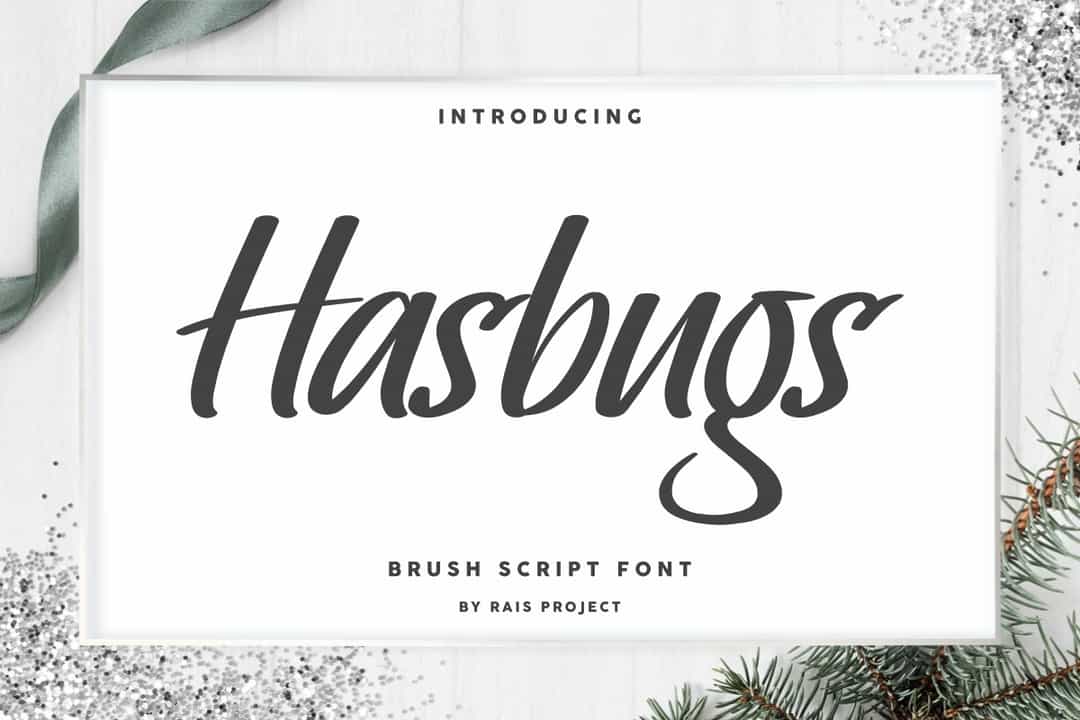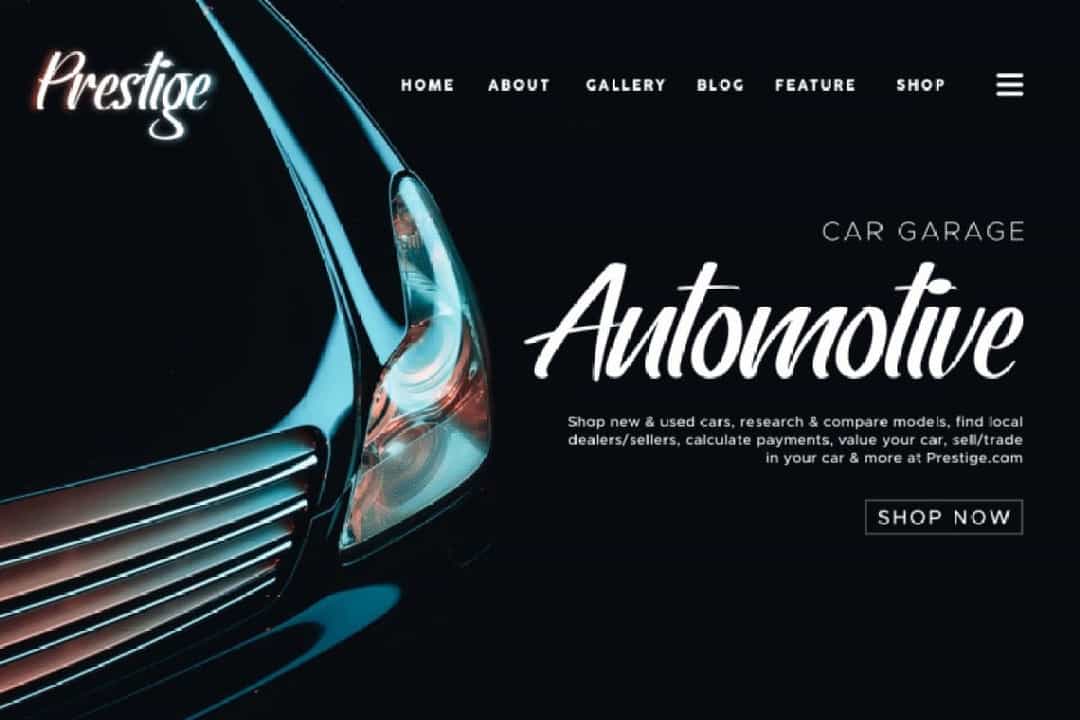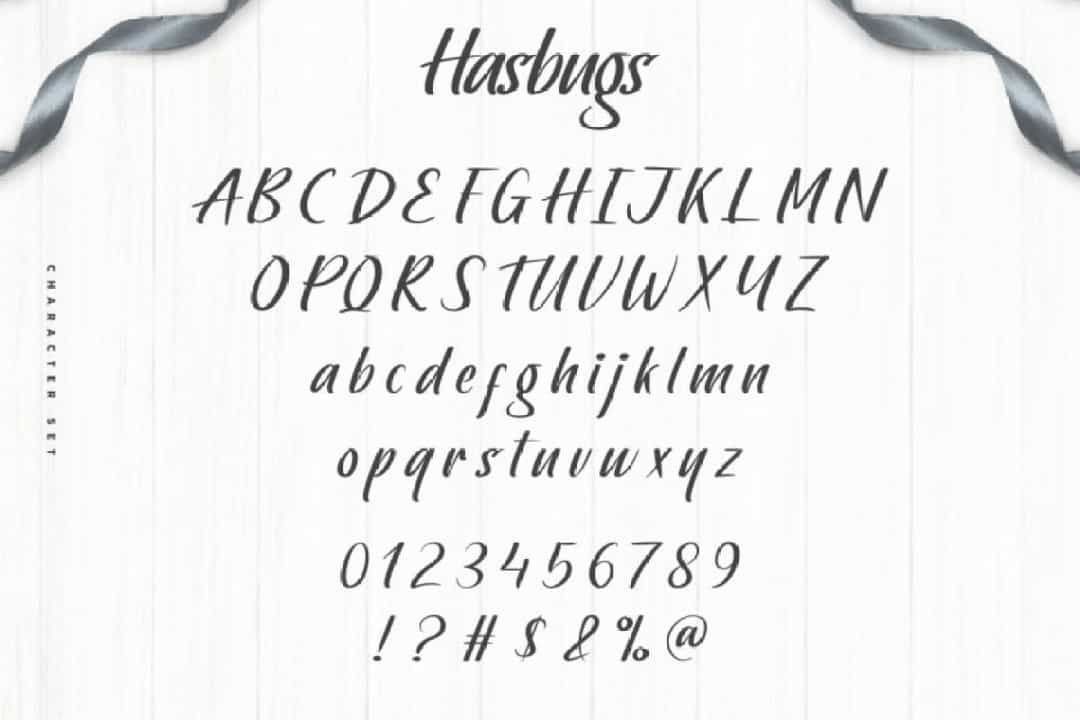
Hasbugs is a brush typeface font that will cater all your needs for headings, promotions, event materials, branding advertisings, magazines, invitations cards, signs, social media, labels, projects that require catchy visual design like Movie Magazine Games Music Videos Racing etc.